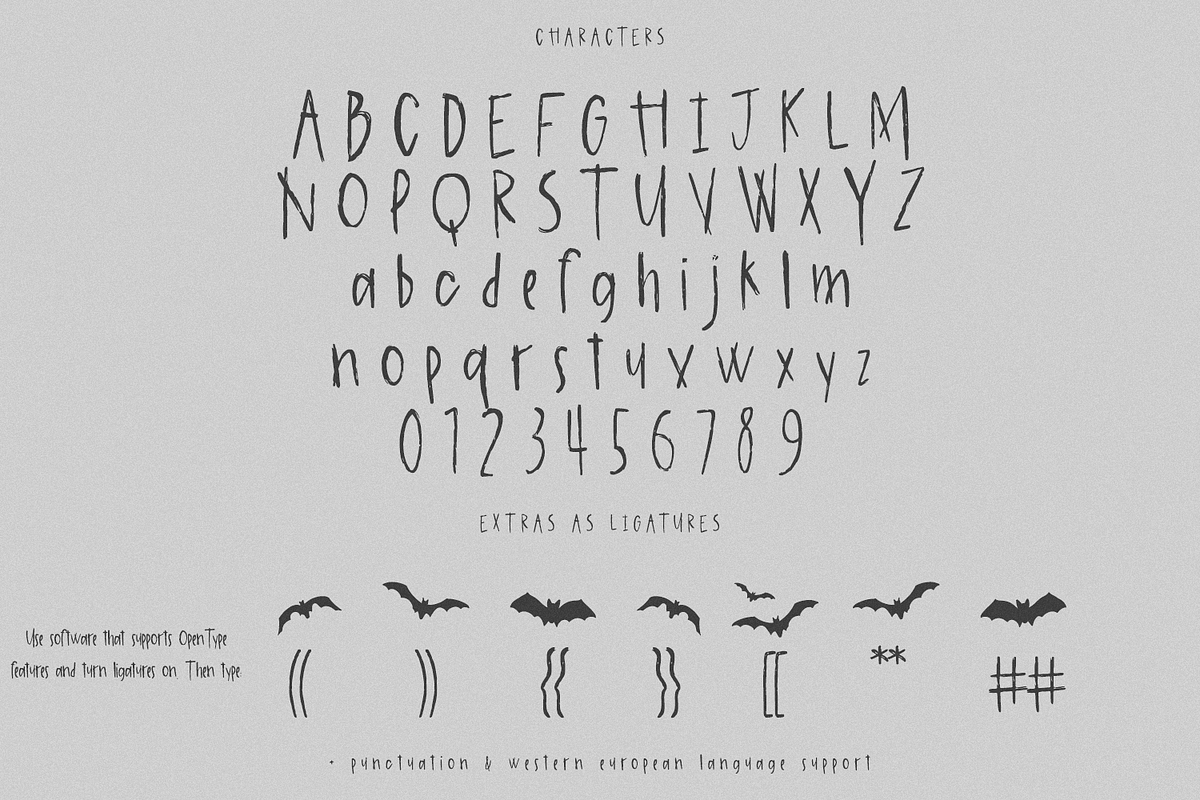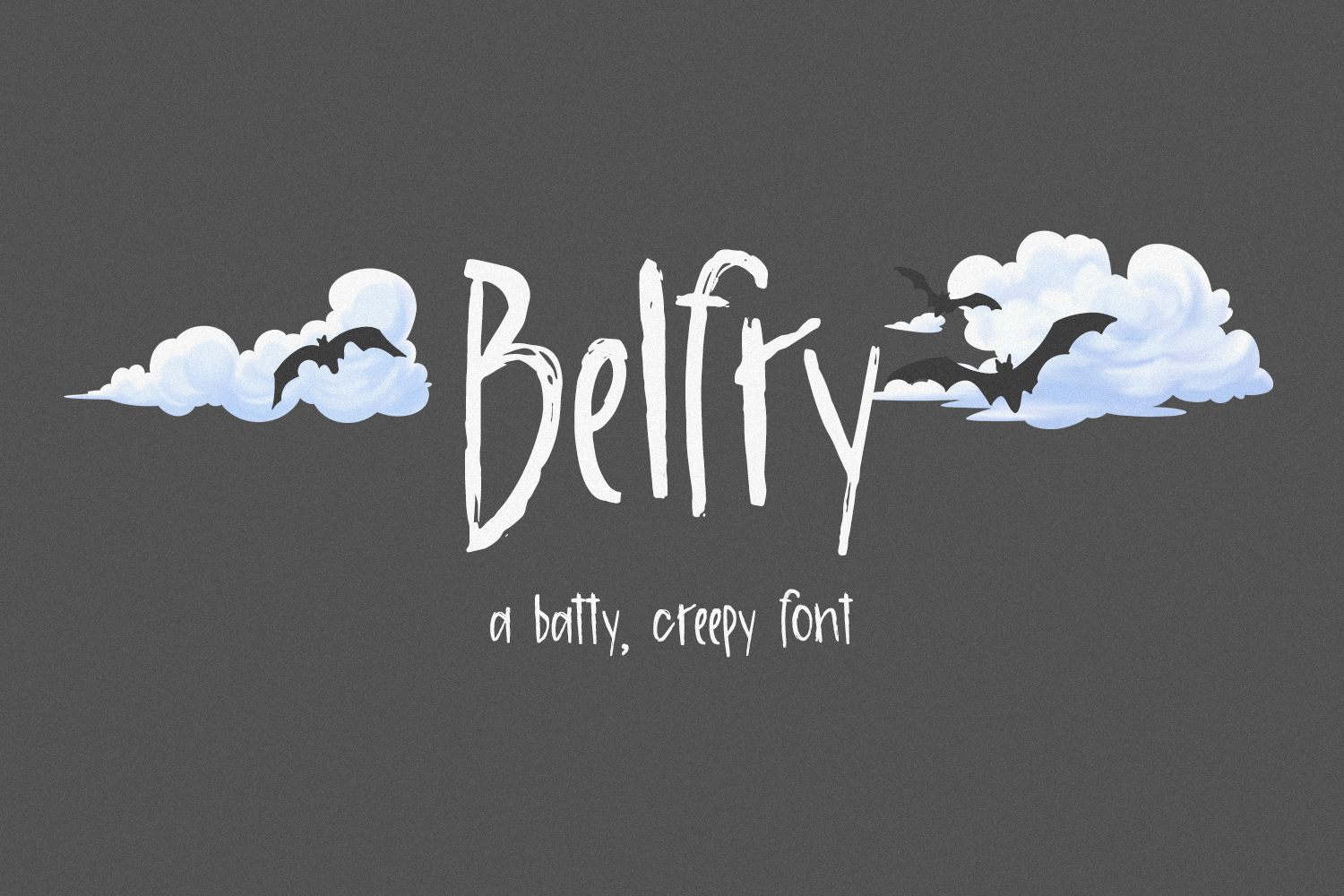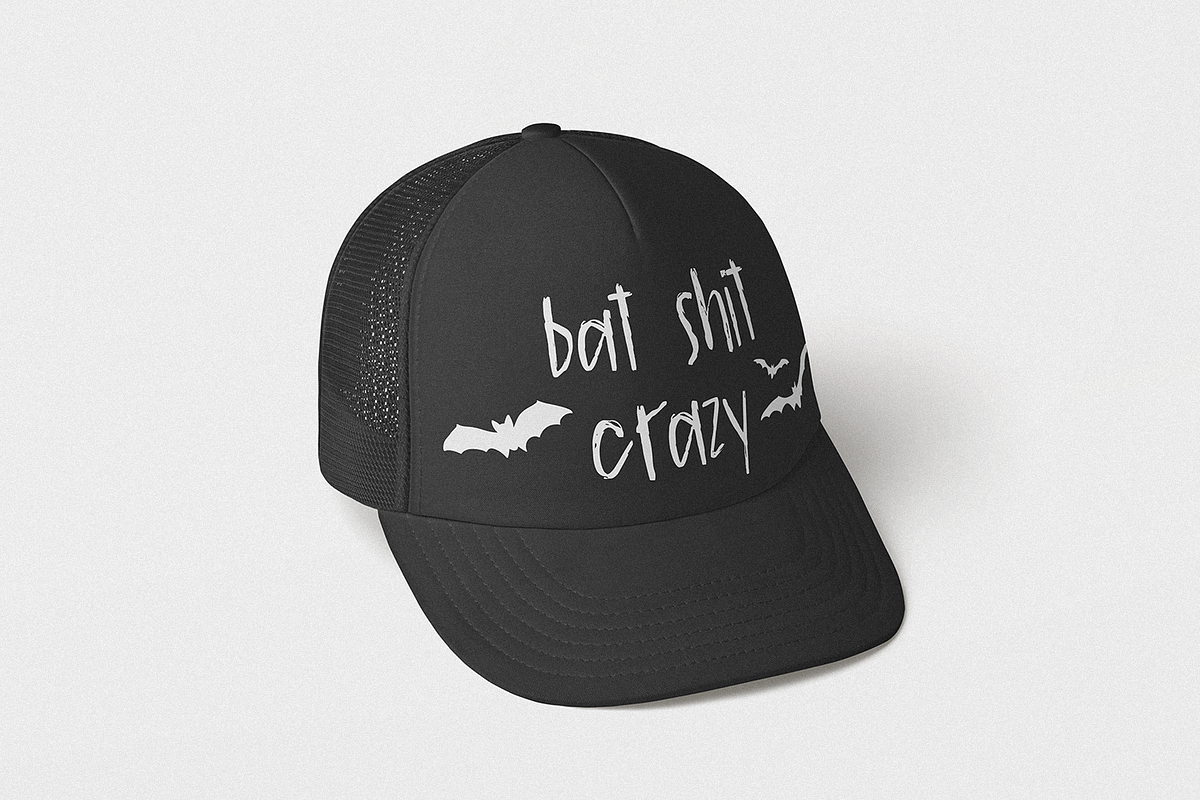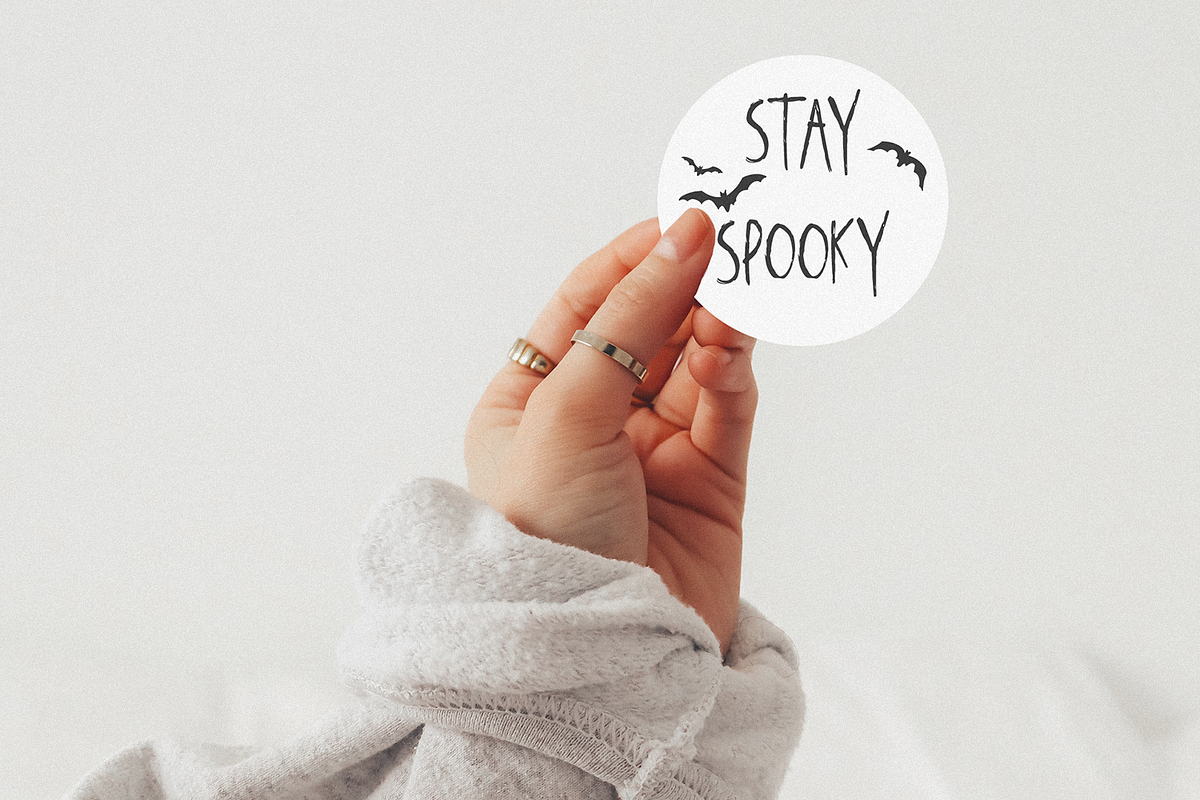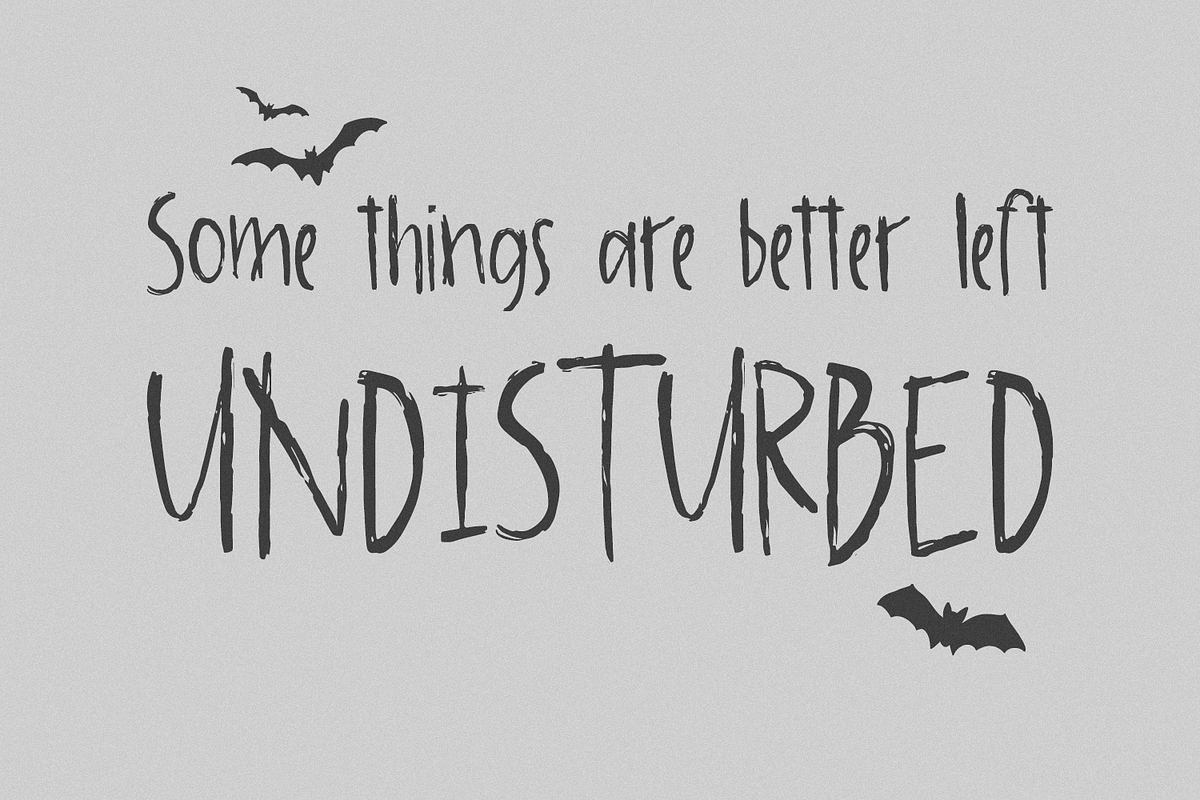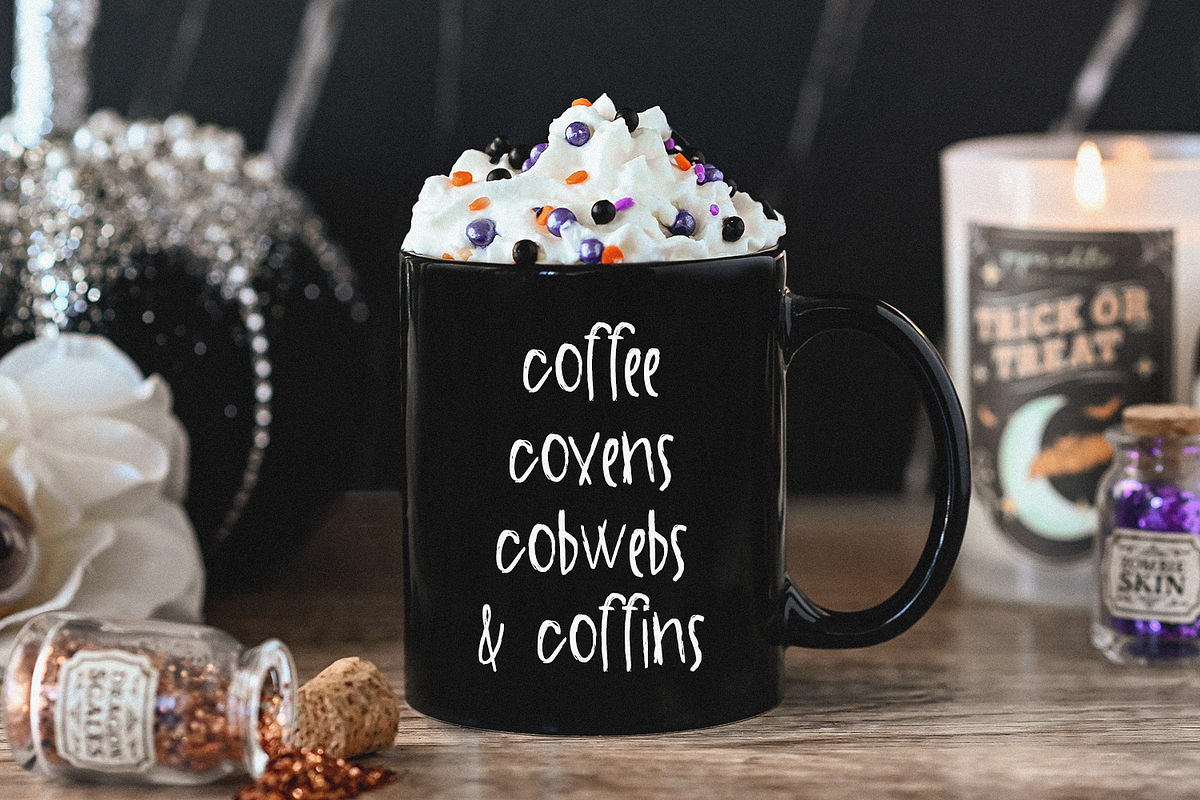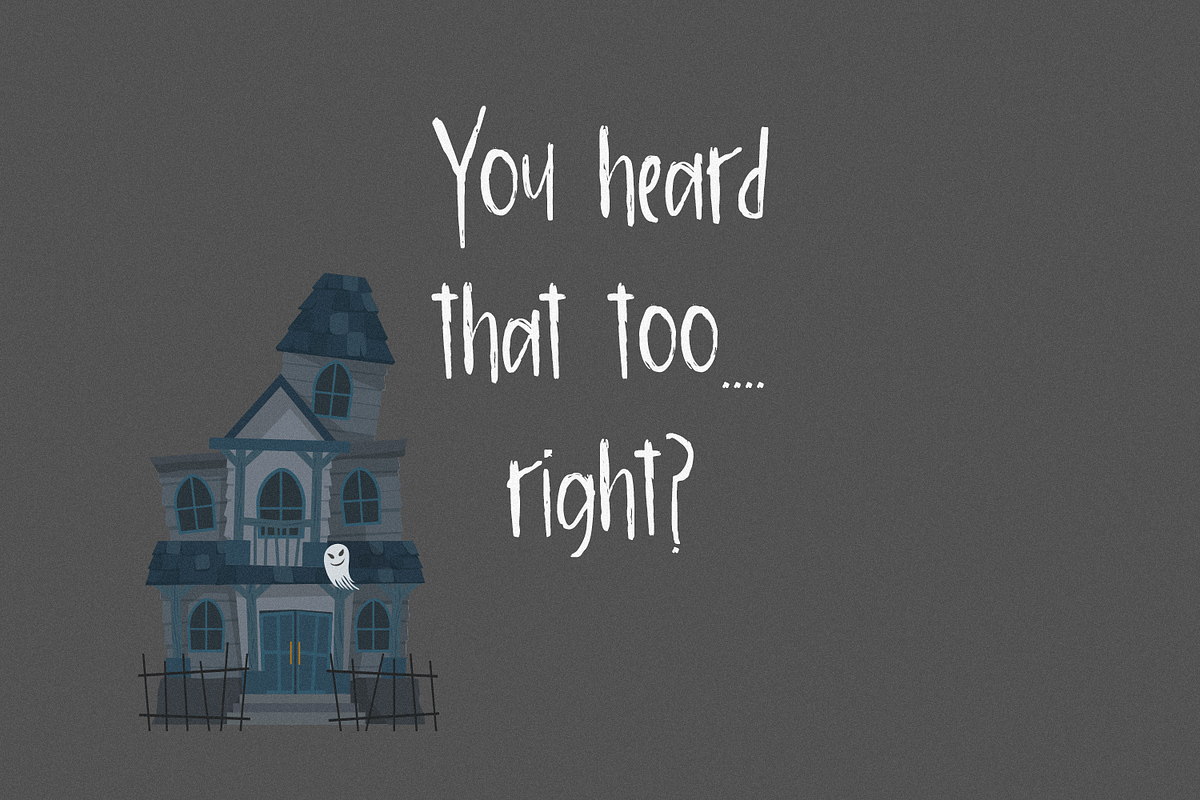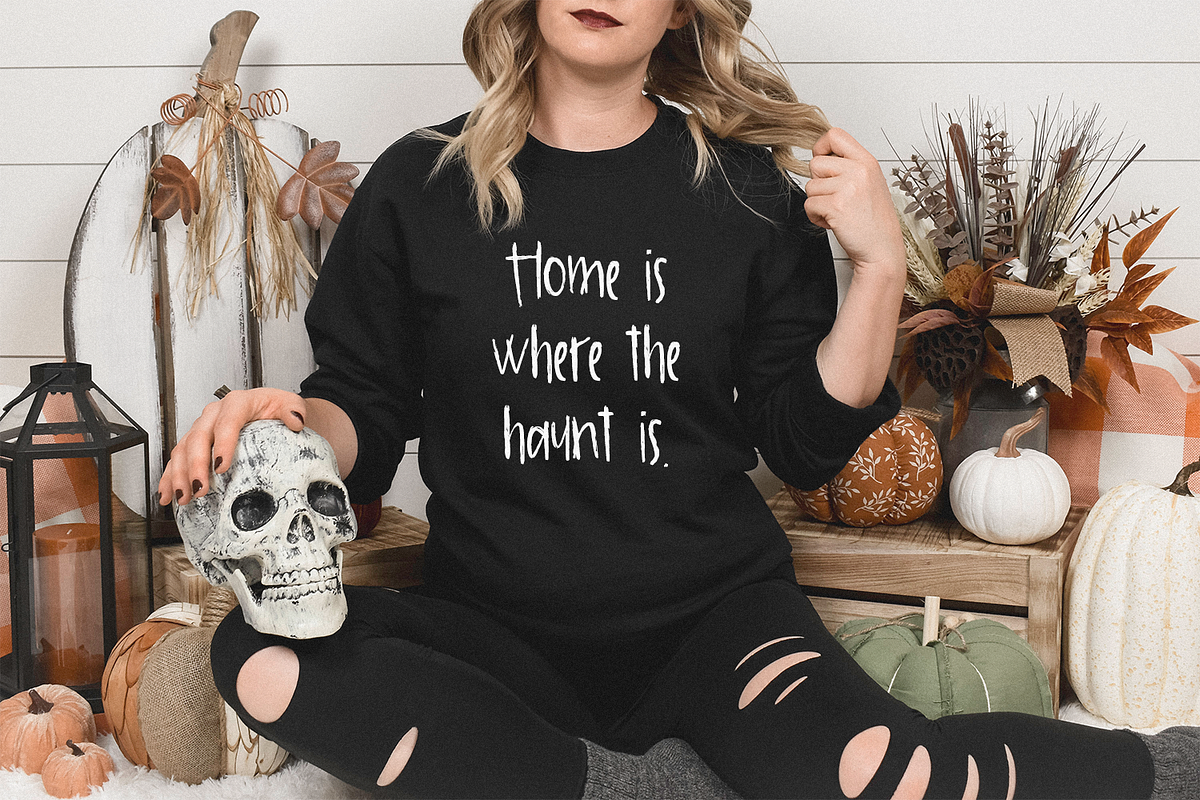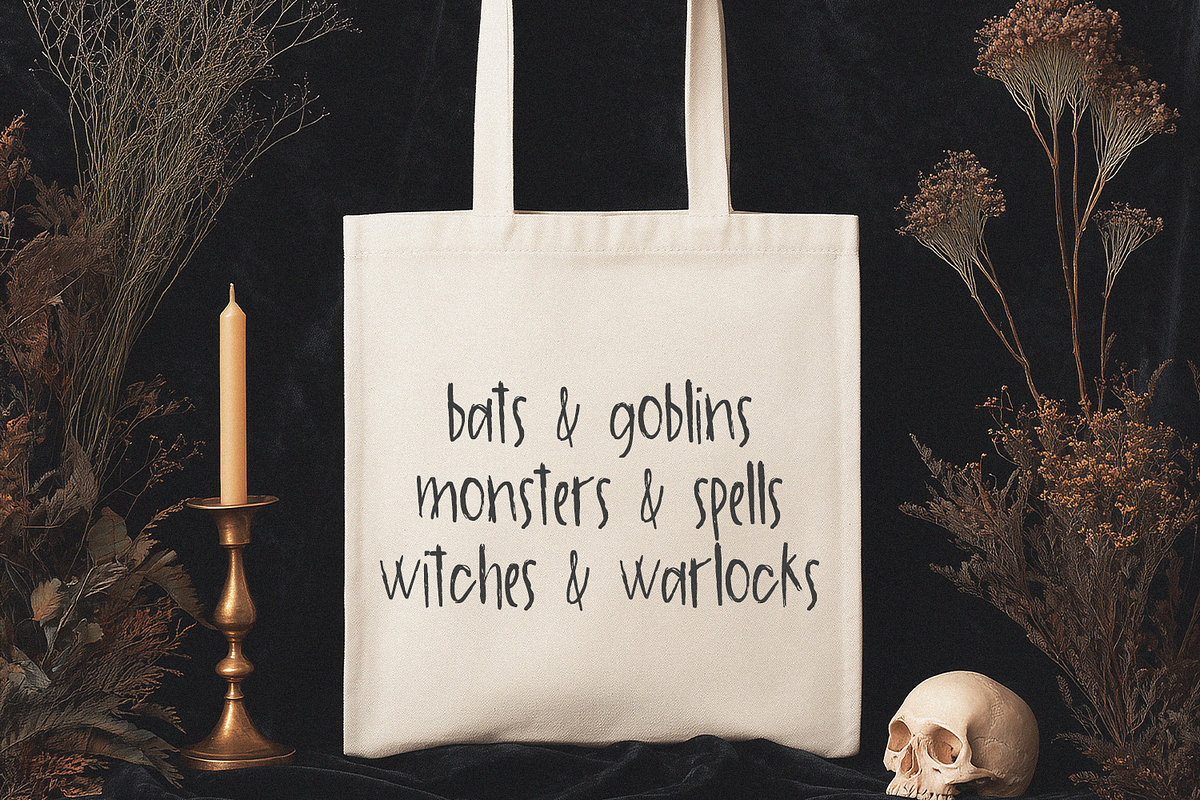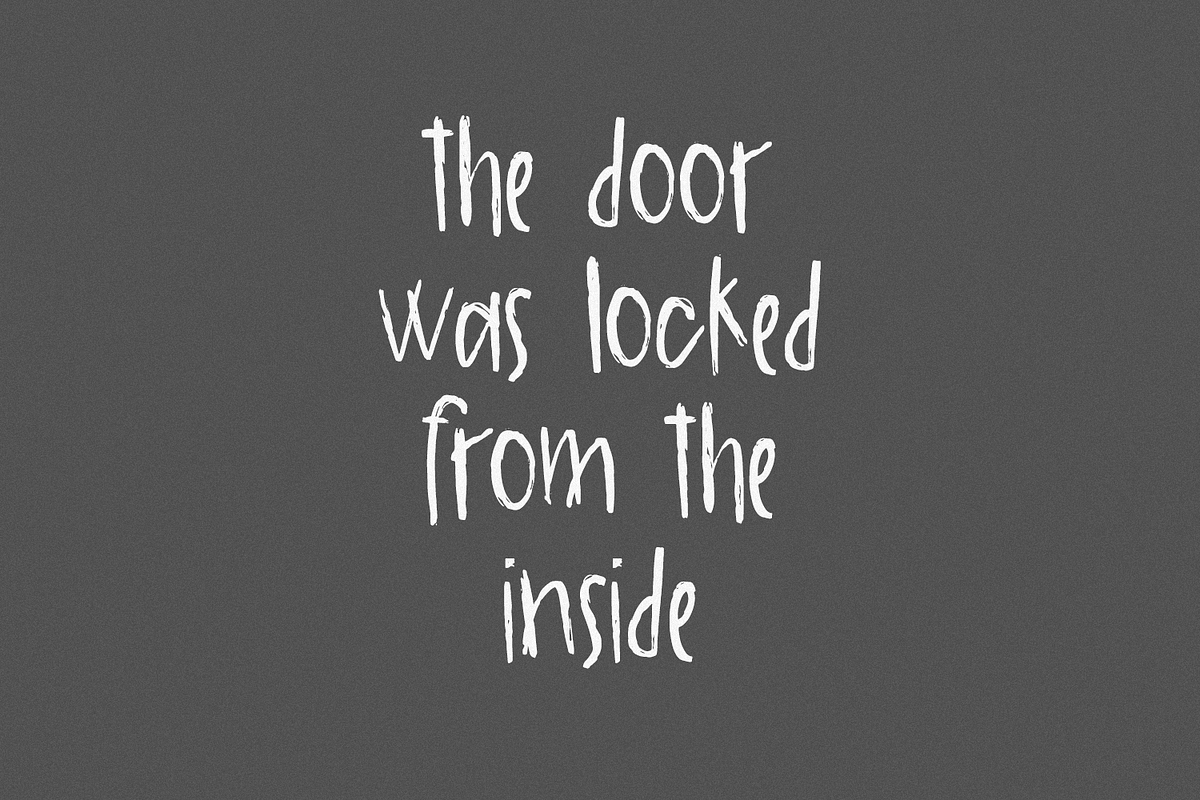
Belfry Sans Font - Bat Font
Meet Belfry, a batty sans font. Belfry is lightly textured, giving it a bit of a weathered appearance. Belfry would be a good fit for Halloween shirts, signs, printed crafts, logos, product packaging, and spooky branding.
Belfry Sans includes:
- full upper + lowercase characters
- numbers + punctuation
- 7 batty alternates (see below for instructions to access)
- Western European language support - English, French, Spanish, Portuguese (Brazil), Portuguese (Portugal), Italian, German (Germany), German (Austria), Dutch, Danish, Swedish, Norwegian (Bokmål and Nynorsk), Finnish, Icelandic, Irish, Welsh